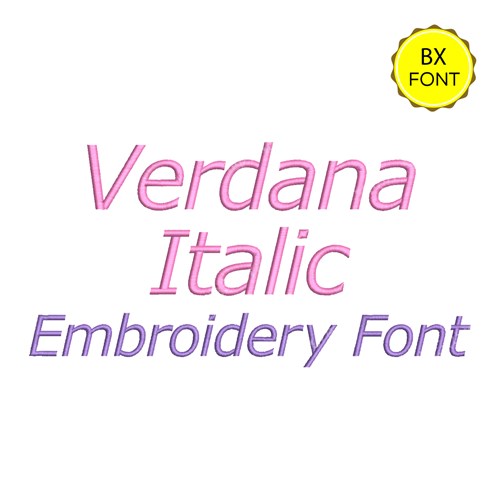
Maya Kreations is happy to present Verdana Italic Embrilliance machine embroidery font which has Cursive style embroidery font like 'Verdana Italic' in shades of pink and purple, perfect for adding flair to clothing and home decor. Available in Embrilliance and BX font formats. included. If you would like to view more embroidery fonts and alphabets please search our embroidery fonts page.